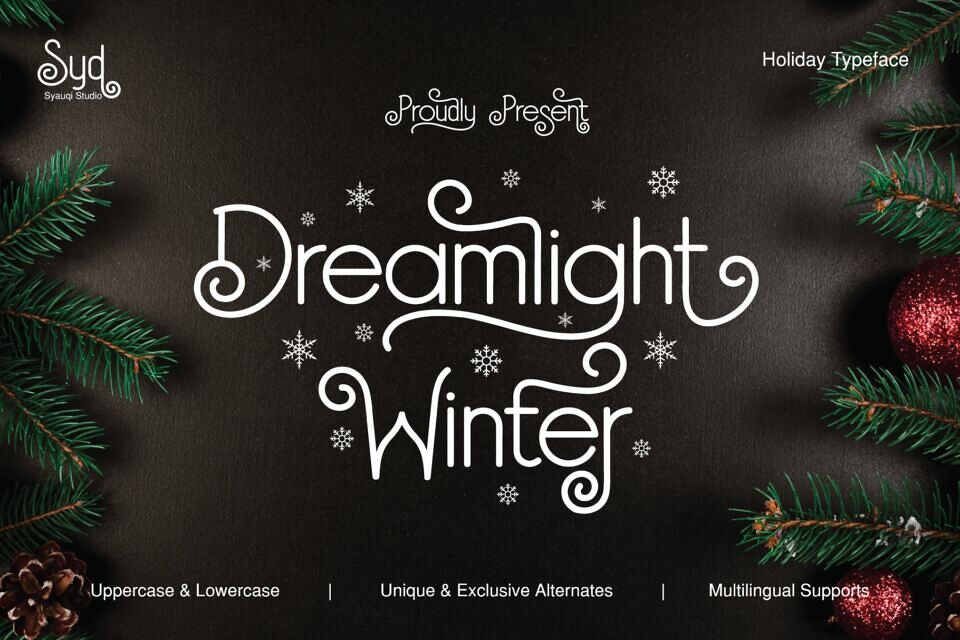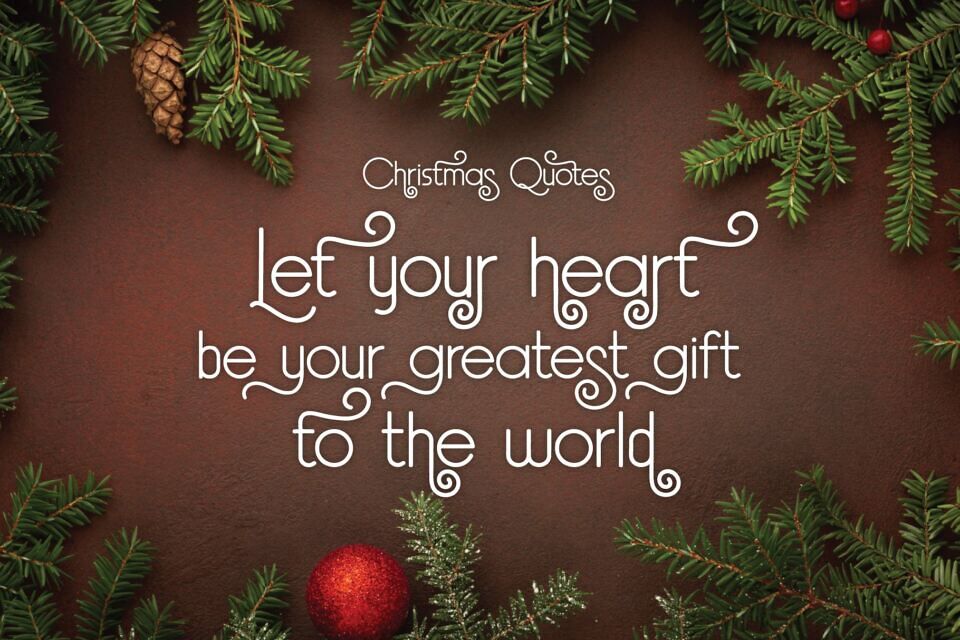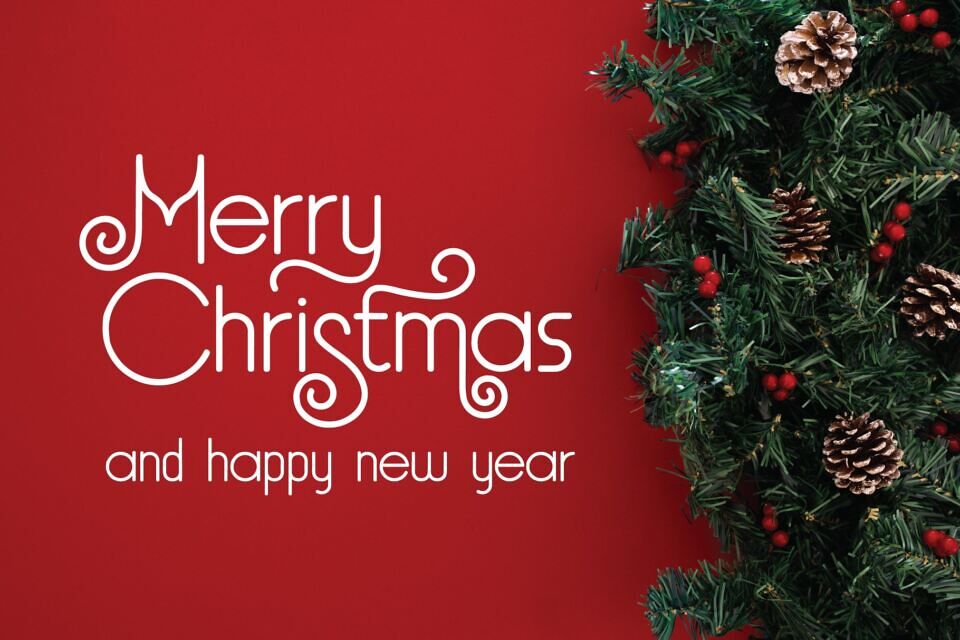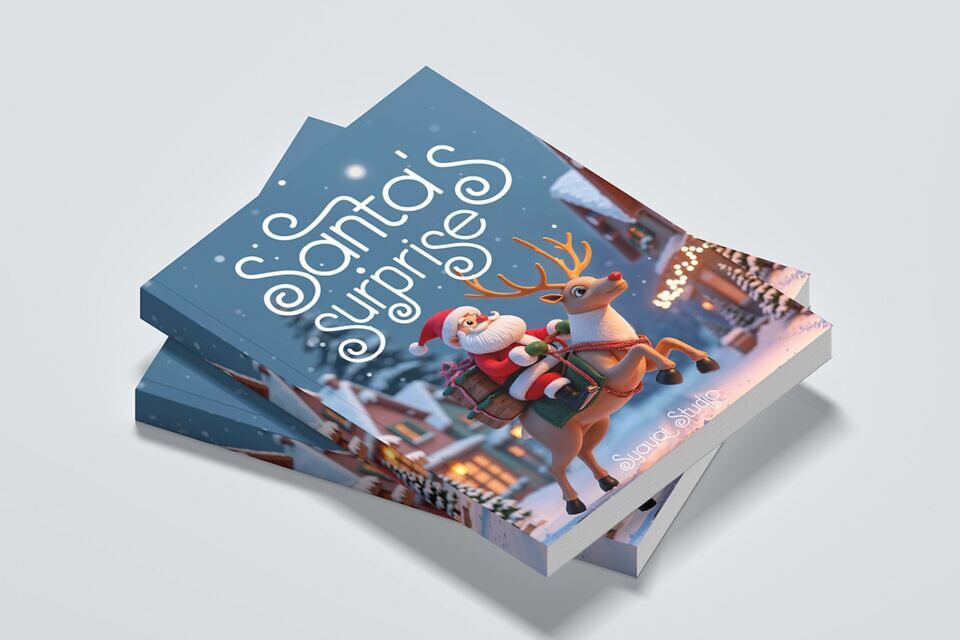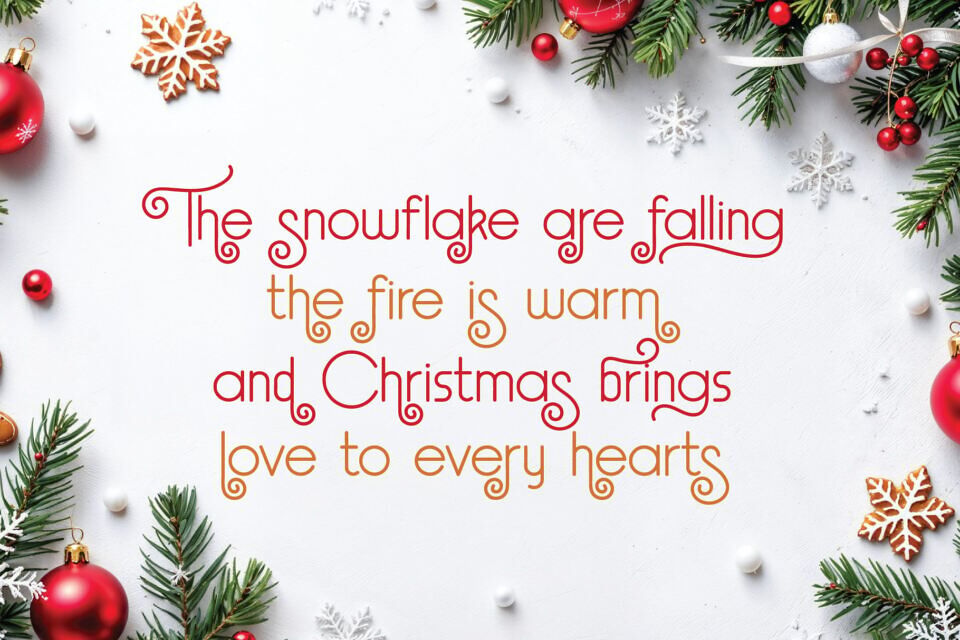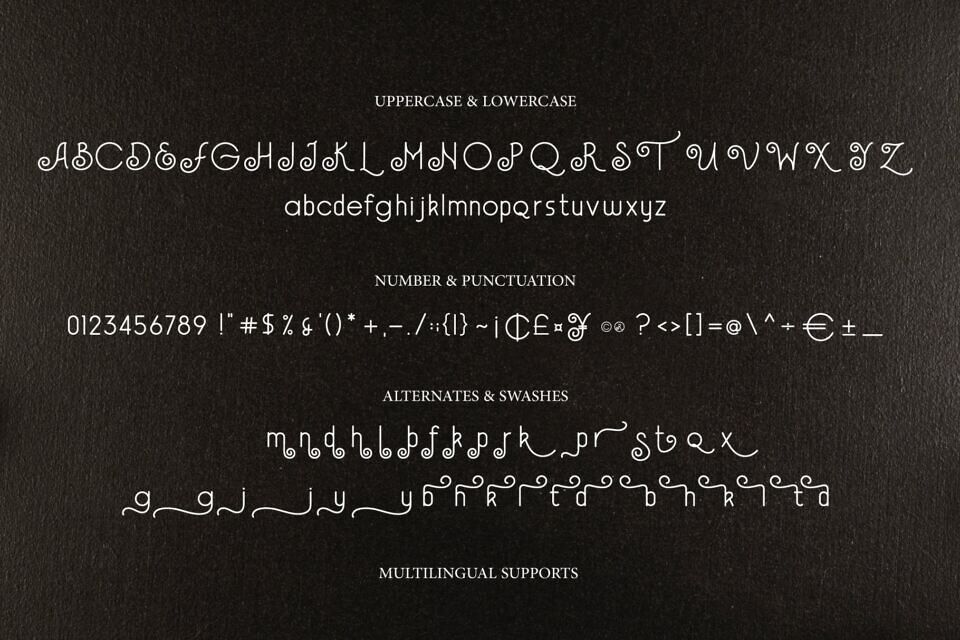
Dreamlight Winter is an elegant and versatile font designed to capture the essence of the winter season. Inspired by the peaceful beauty of snowy landscapes and the warmth of festive celebrations, this font is perfect for any design that evokes the magic of Christmas and the chill of winter.